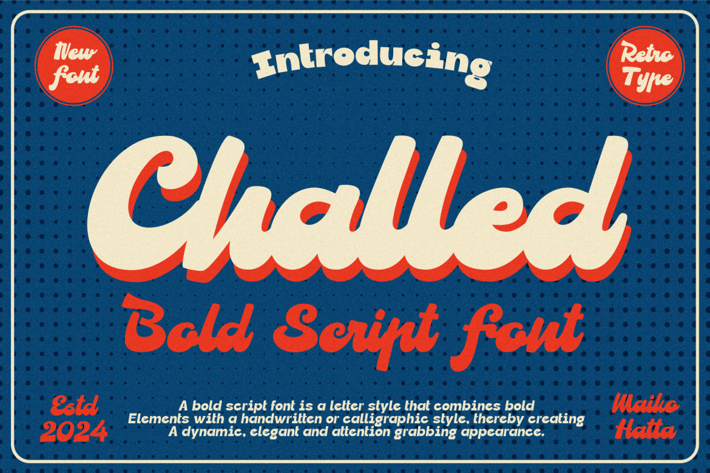
Introducing our new product Challed - Bold Script Font
Challed - is a very flexible choice and can be used in a variety of design contexts. Its ability to provide a clean, professional, contemporary look and its simplicity and visual appeal make this font good for use in the world of graphic design and modern typography.